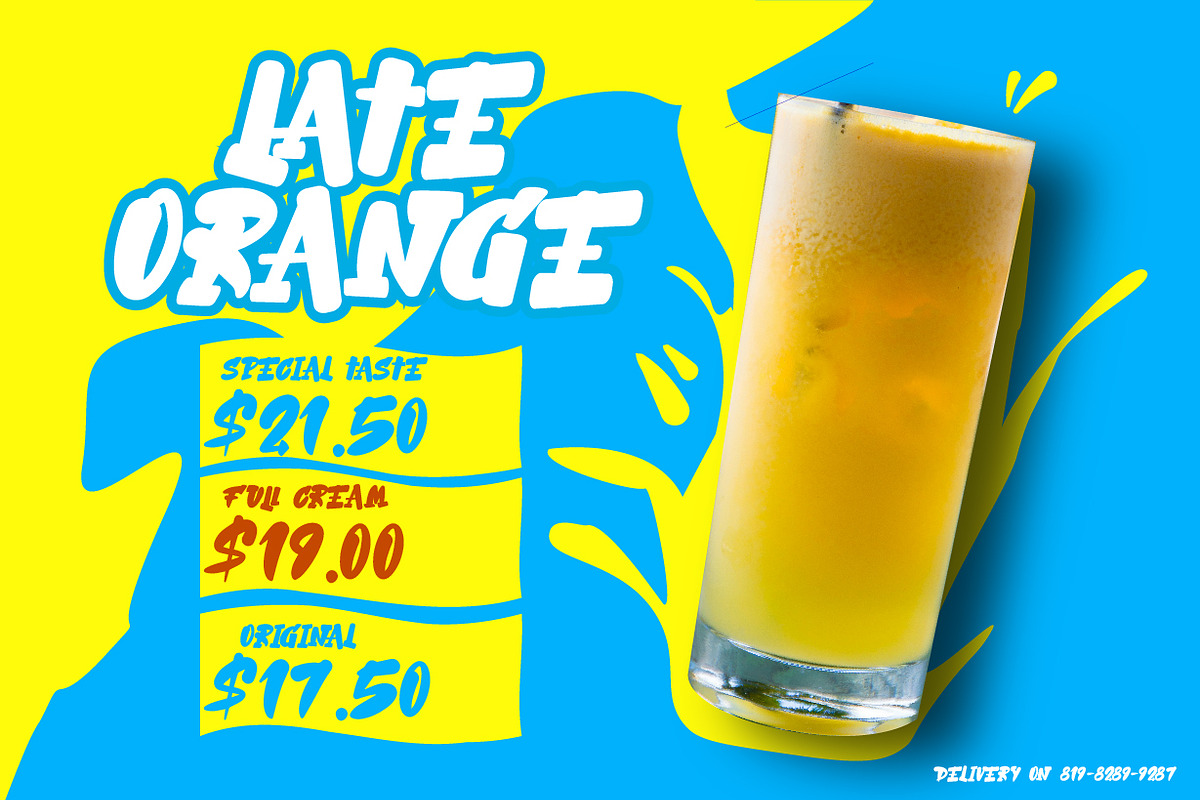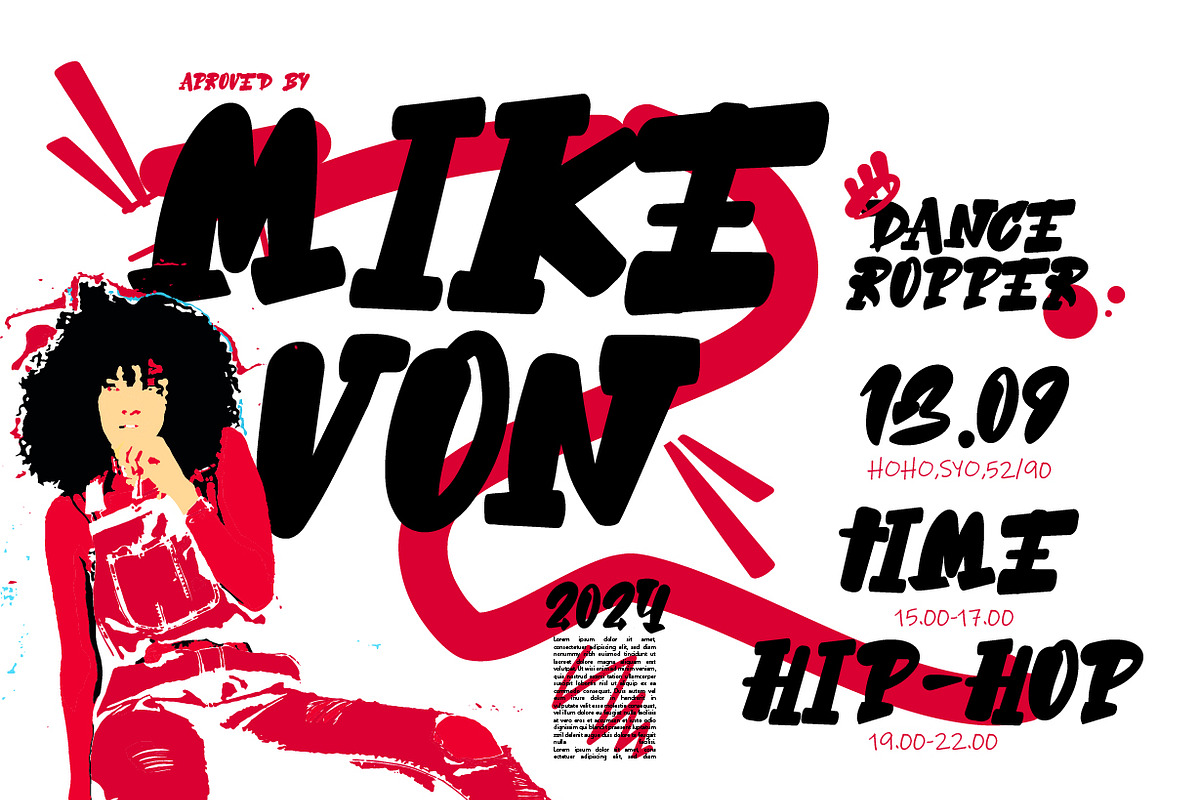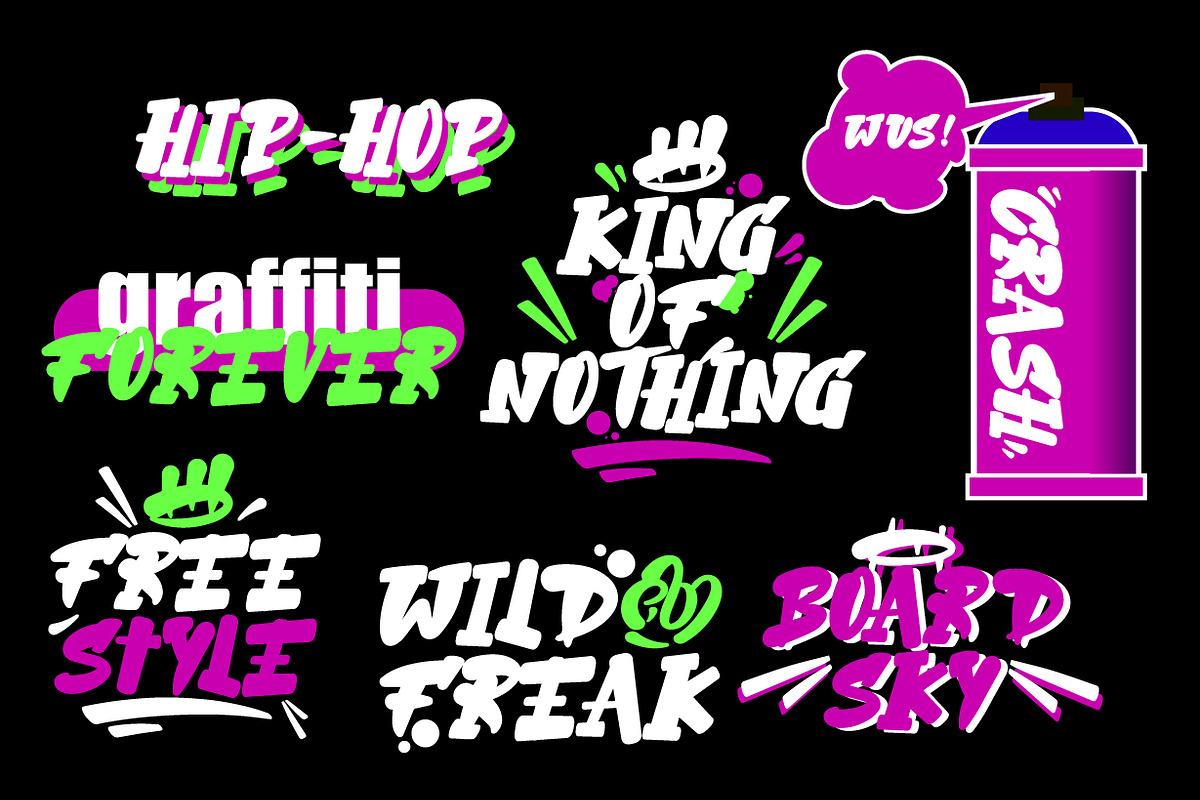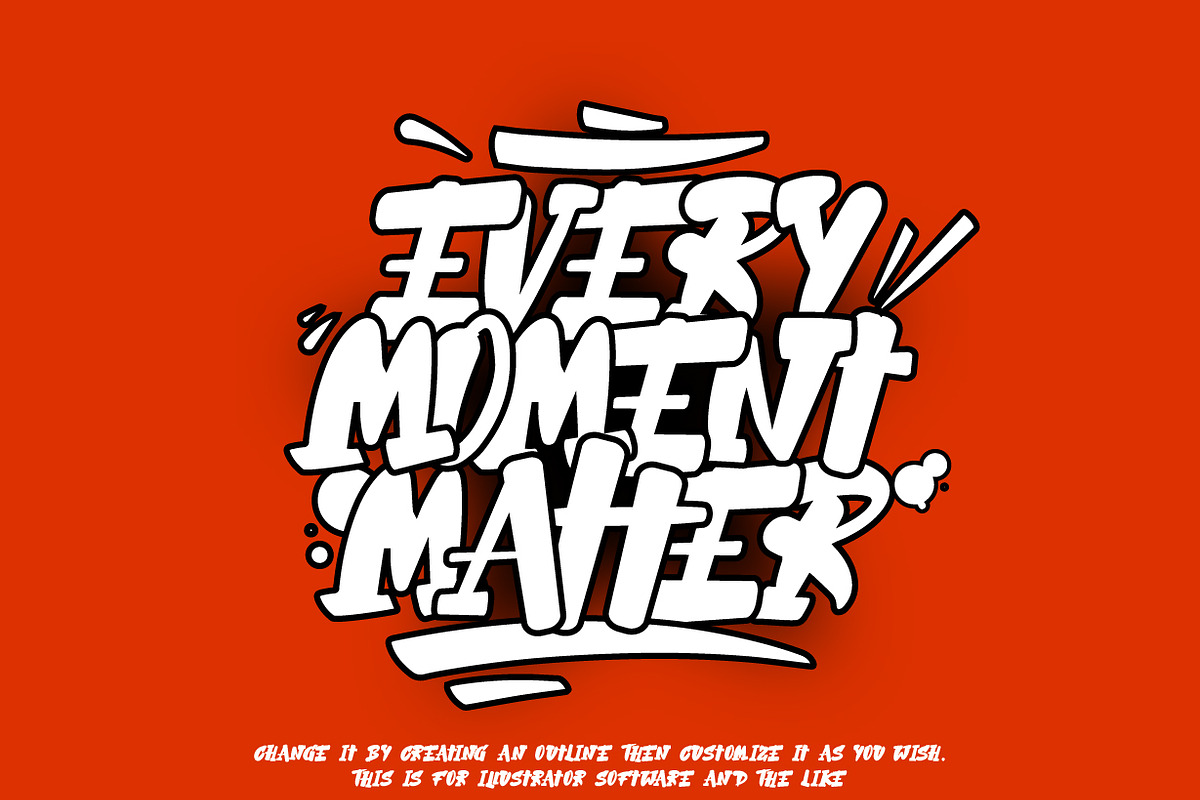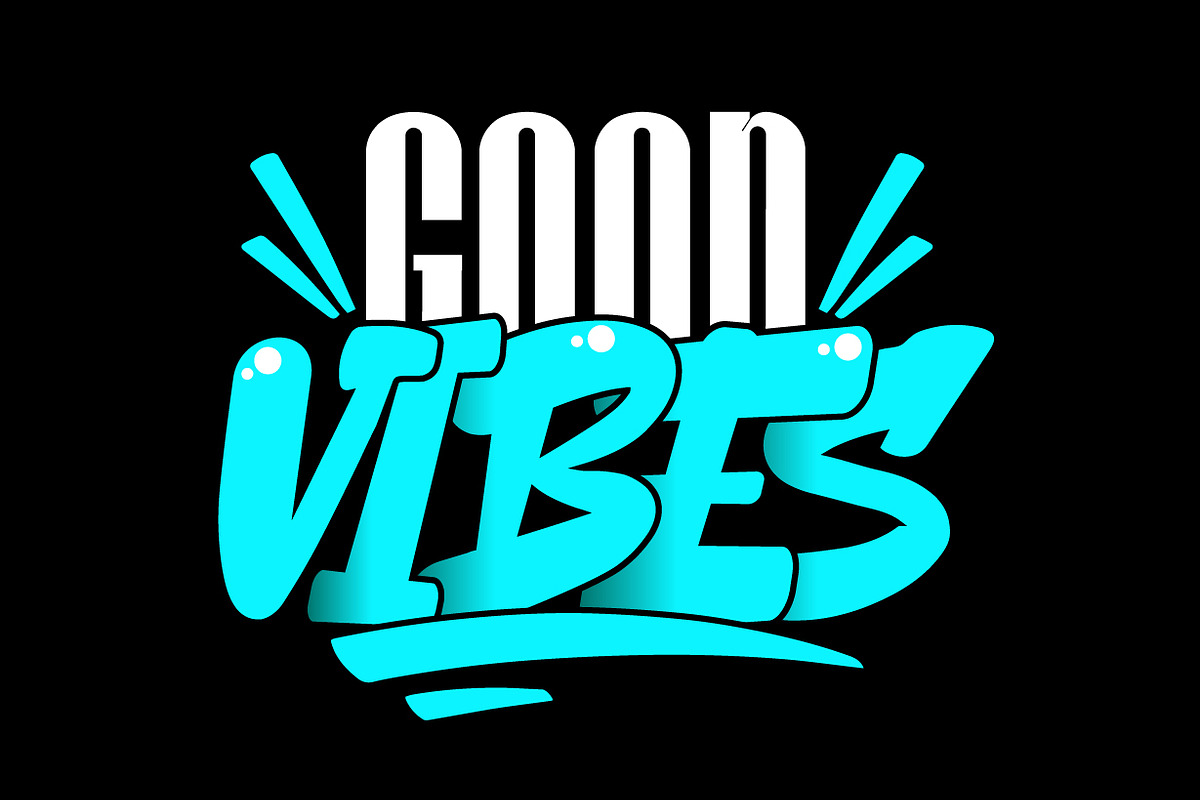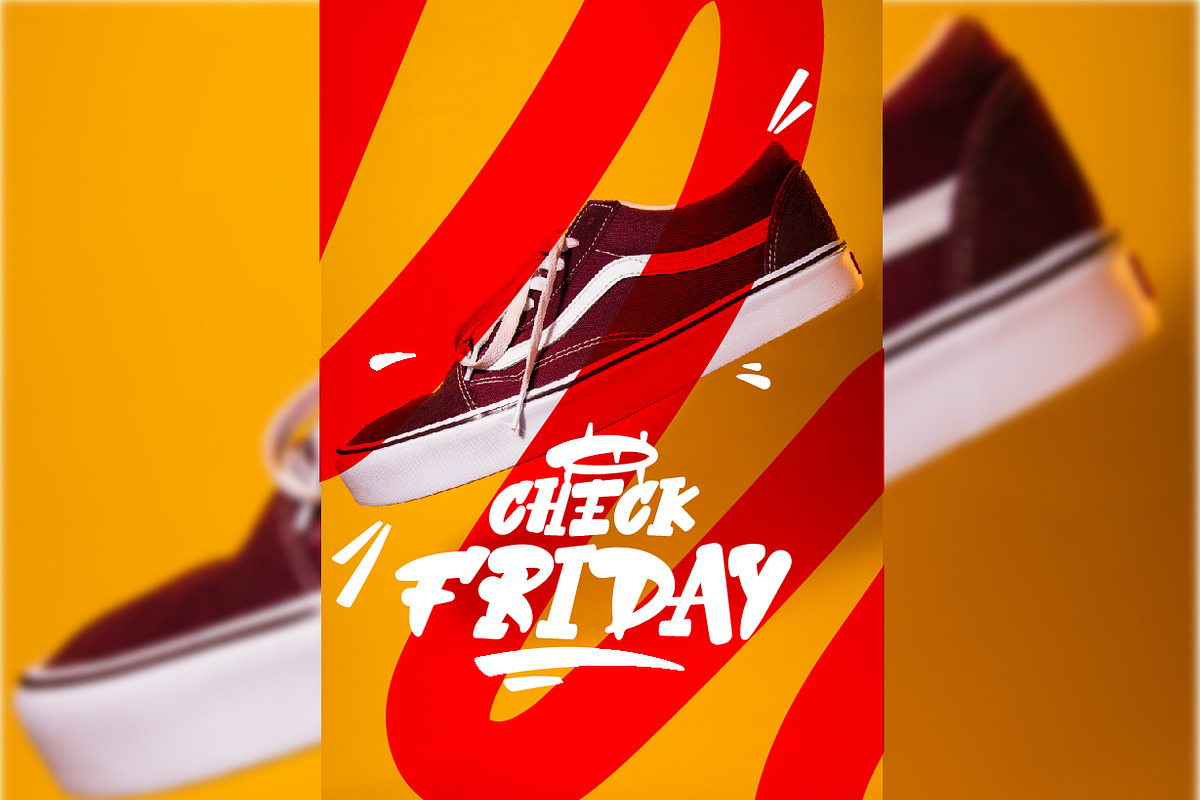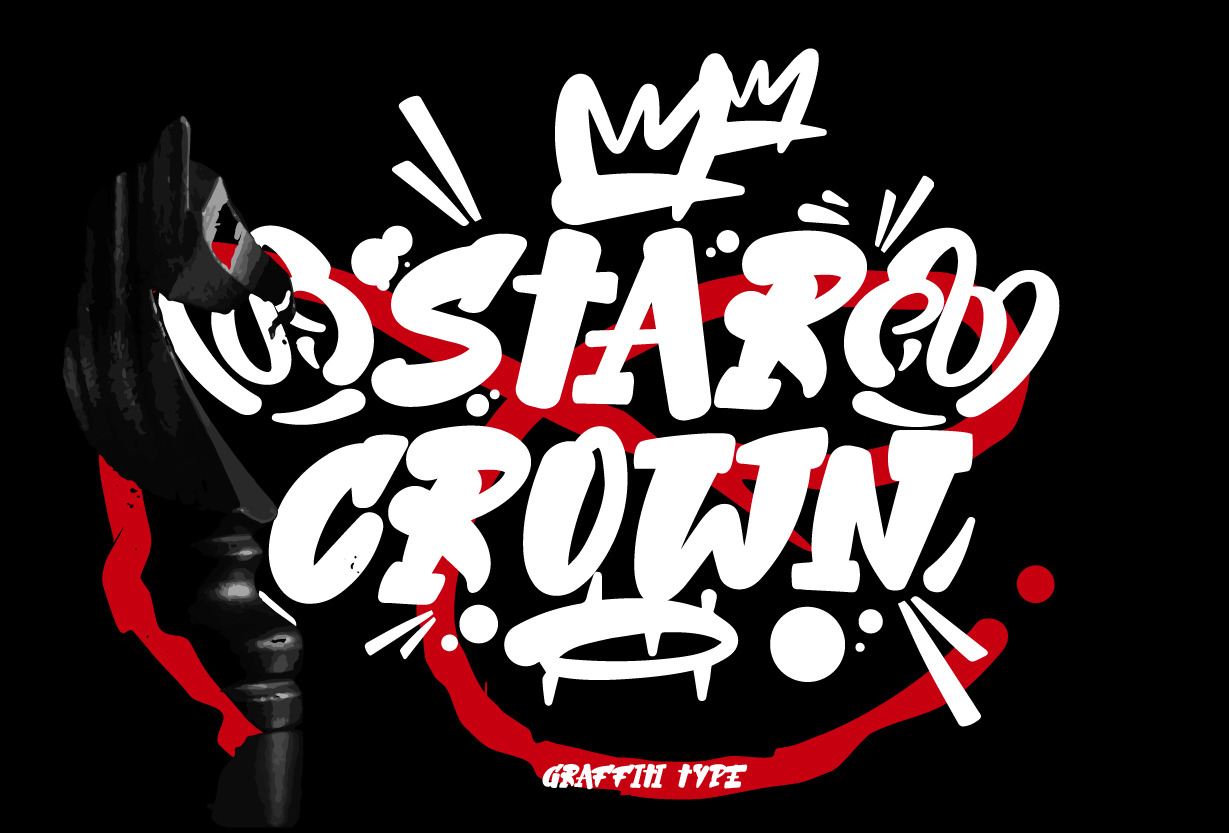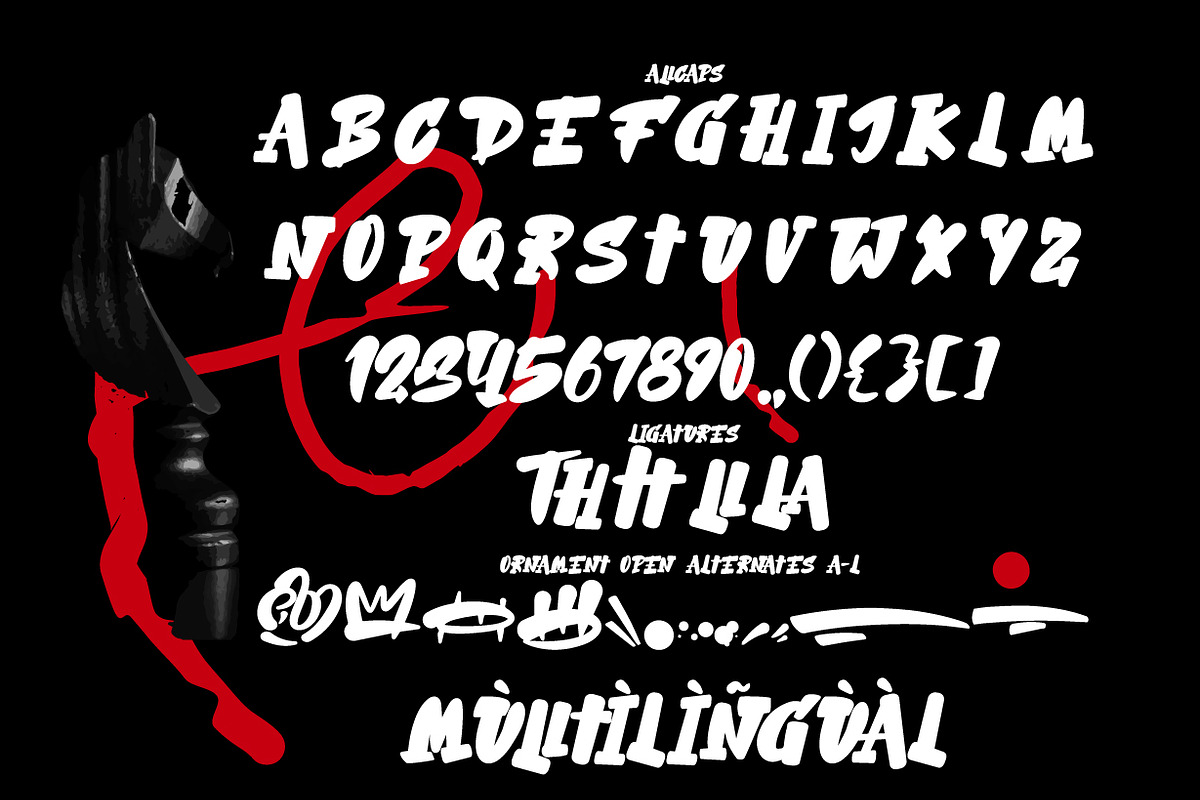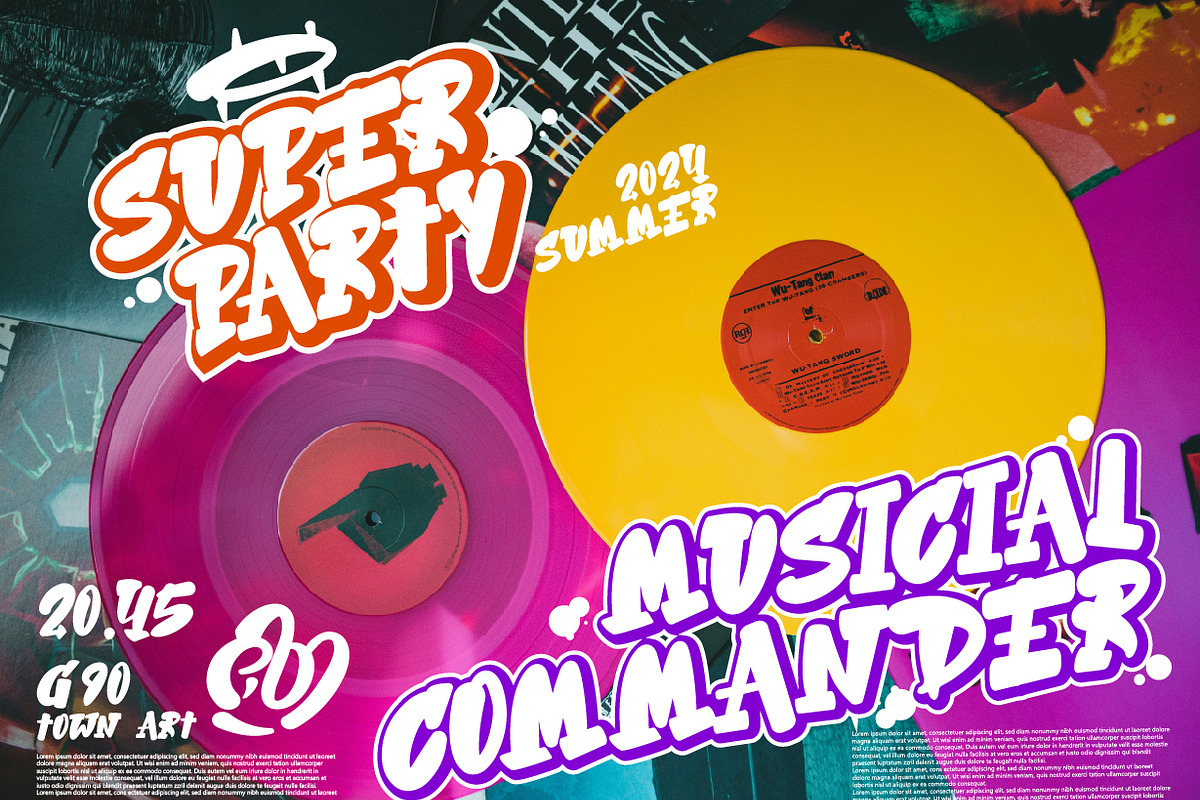
Star Crown - Graffity Font
Hello creatives Introducing the Star Crown inspired by graffiti style. accompanied by additional ornaments that you can customize your own style. can be applied like, sticker, image style etc.
FEATURE;
Uppercase.
Support Foreign, Numbers and Punctuation.
Regular, Ornament & ligatures